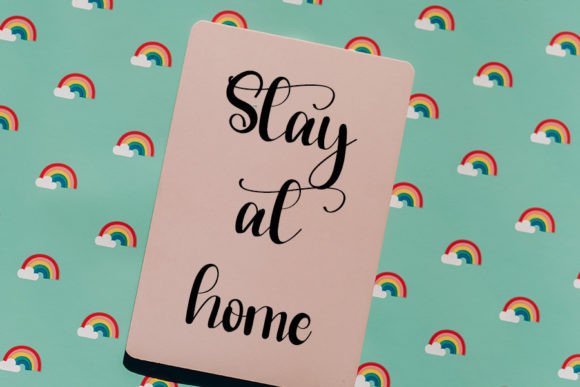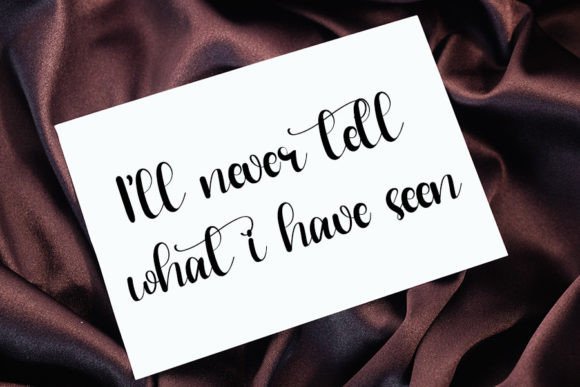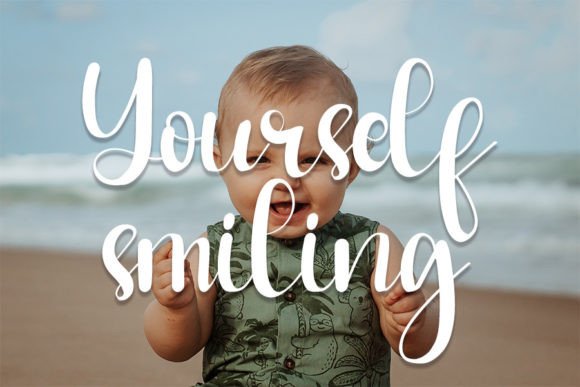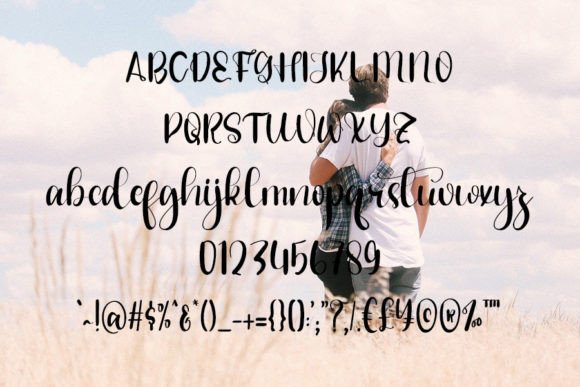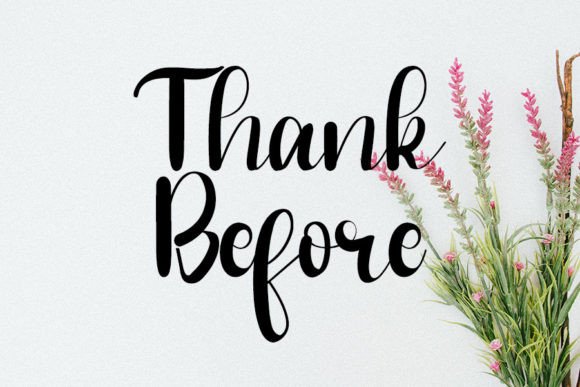
Introducing Hallow Font: Elevate Your Designs with Timeless Elegance
In the world of typography, a font can make or break the aesthetic of a design project. For designers and crafters seeking a touch of sophistication and classic charm, Hallow Font is an exceptional choice. This stylish handwritten font boasts a contemporary atmosphere, impeccable form, and a balanced, varied style that enhances the beauty of any project.
The Inspiration Behind Hallow Font
Hallow Font draws inspiration from timeless classic calligraphy, bringing a sense of nostalgia and refinement to modern designs. The creators of Hallow aimed to craft a font that not only pays homage to traditional calligraphy but also meets the demands of contemporary design. The result is a font that seamlessly blends classic elegance with modern flair.
Key Features of Hallow Font
- Contemporary Atmosphere: Hallow Font has a fresh, modern feel that makes it perfect for a wide range of design applications, from branding and advertising to packaging and digital media.
- Impeccable Form: The font’s precise and clean lines ensure excellent readability, making it suitable for both headlines and body text.
- Balanced and Varied: Hallow Font features a range of characters and ligatures, allowing designers to create visually appealing and dynamic text arrangements.
Design Applications for Hallow Font
Hallow Font’s versatility makes it an excellent choice for various design projects, including:
- Branding and Logo Design: Create a lasting impression with Hallow Font’s elegant and sophisticated style, perfect for luxury brands, fashion labels, and high-end businesses.
- Stationery and Packaging: Add a touch of classic charm to your stationery, product packaging, and labels with Hallow Font’s refined and polished appearance.
- Digital Media: Enhance your website, social media, or advertising campaigns with Hallow Font’s modern and engaging aesthetic.
Hallow Font offers numerous benefits for designers and crafters, including:
- Time-Saving: With Hallow Font’s comprehensive character set and ligatures, designers can save time and effort when creating text arrangements.
- Flexibility: The font’s versatility allows designers to experiment with different styles, sizes, and colors, ensuring a unique and personalized look.
- High-Quality Output: Hallow Font’s exceptional readability and aesthetic appeal ensure that designs look professional and polished, even in small sizes.
Tips for Using Hallow Font Effectively
To get the most out of Hallow Font, consider the following tips:
- Pair with Complementary Fonts: Combine Hallow Font with contrasting fonts to create visual interest and hierarchy in your designs.
- Experiment with Colors: Take advantage of Hallow Font’s versatility by trying out different colors, gradients, and textures to add depth and dimension to your designs.
- Pay Attention to Kerning: Adjust the kerning and spacing between characters to ensure optimal readability and aesthetics.
Hallow Font is an exceptional addition to any designer’s or crafter’s toolkit. With its timeless classic calligraphy inspiration, contemporary atmosphere, and impeccable form, this stylish handwritten font is perfect for elevating a wide range of design projects. Whether you’re creating branding materials, stationery, or digital media, Hallow Font is sure to bring a touch of elegance and sophistication to your work.